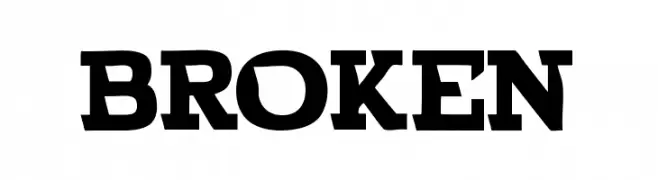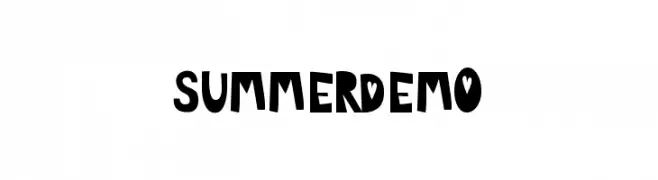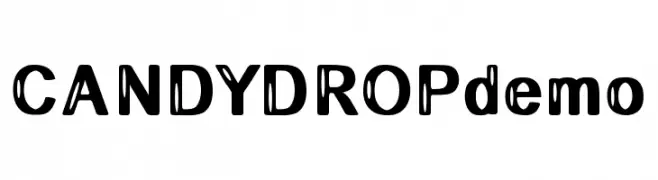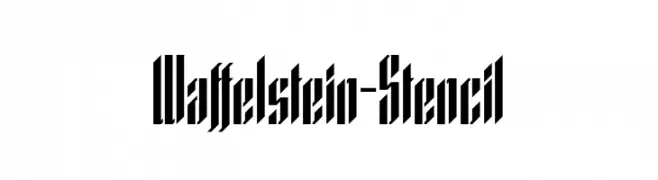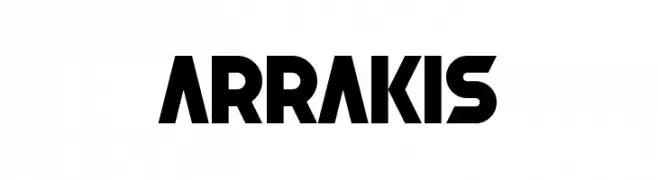
Bold, classic serif font with strong, uniform strokes and tight spacing.
A farm-themed pictogram dingbat font with cartoon-style illustrations.
A playful and bold font with a whimsical, irregular design.
A playful, school-themed handwritten font with doodle-like illustrations.
A playful, bold typeface with rounded and angular elements, featuring creative negative space.
A modern, sans-serif font with tall, narrow characters and consistent stroke width.
A bold, geometric font with rounded edges and uniform strokes.
A bold, stencil-style font with sharp, angular edges and a geometric design.
A playful, handwritten font with thin, irregular strokes and a casual style.
A bold, geometric font with strong lines and modern appeal.